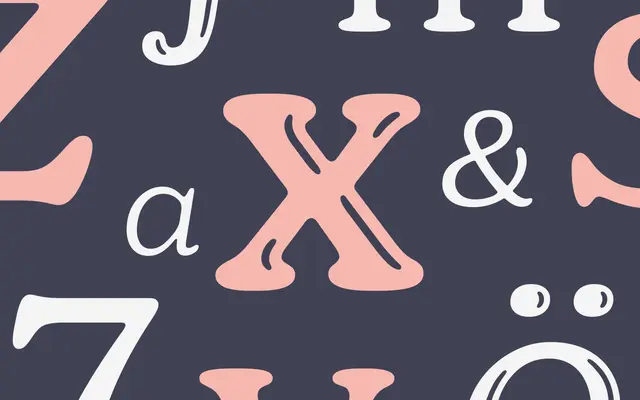
Jovie
Dalton Maag · Franziska Hubmann · 2024
Jovie specimen from Dalton Maag
A soft-serif by Franziska Hubmann with playful italics, swashes and a Glow display style for brand systems that want warmth.
A soft-serif by Franziska Hubmann that rounds the contrast and corners of a traditional serif into something warmer. The variable font runs an extensive Weight axis with playful italics, swashes, ligatures and expressive alternates, and the Glow style is built for headline impact. Sits comfortably across text and display in identity, editorial and packaging.
Dalton Maag classifies Jovie as a delicious soft-serif typeface with a versatile variable font, featuring an extensive Weight axis, playful Italics, swashes, ligatures, expressive alternates and an eye-catching Glow style.
Jovie Glow